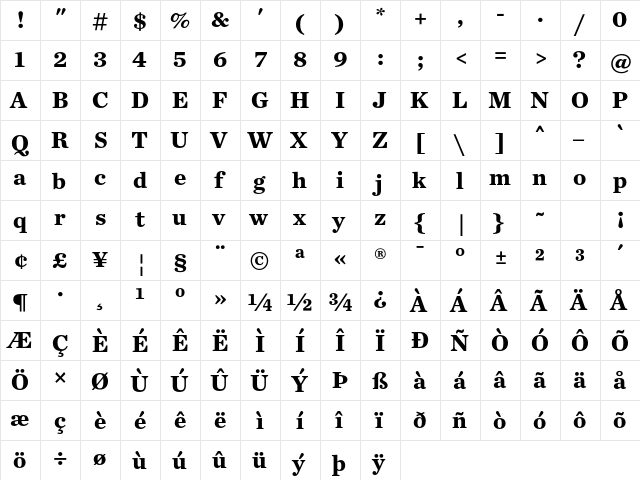
Chronicle Text G1 Bold
Bold · Hoefler & Frere-Jones Hoefler & Frere-Jones ·
Design Context for Chronicle Text G1 Typeface
Chronicle Text G1 is a composed and adaptable typeface that performs quietly and consistently across a wide range of design contexts. The heavy weight commands attention and anchors typographic hierarchies.